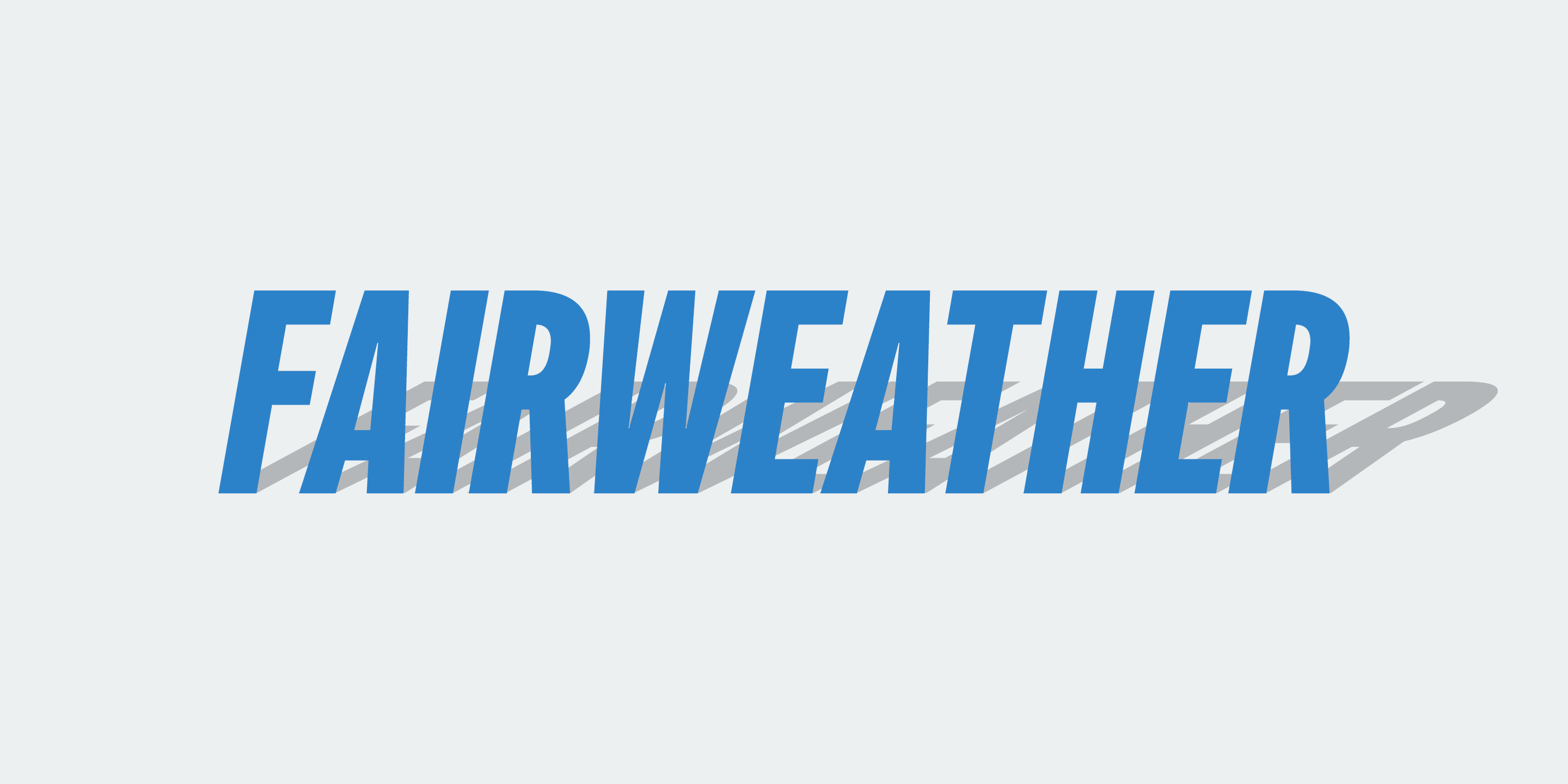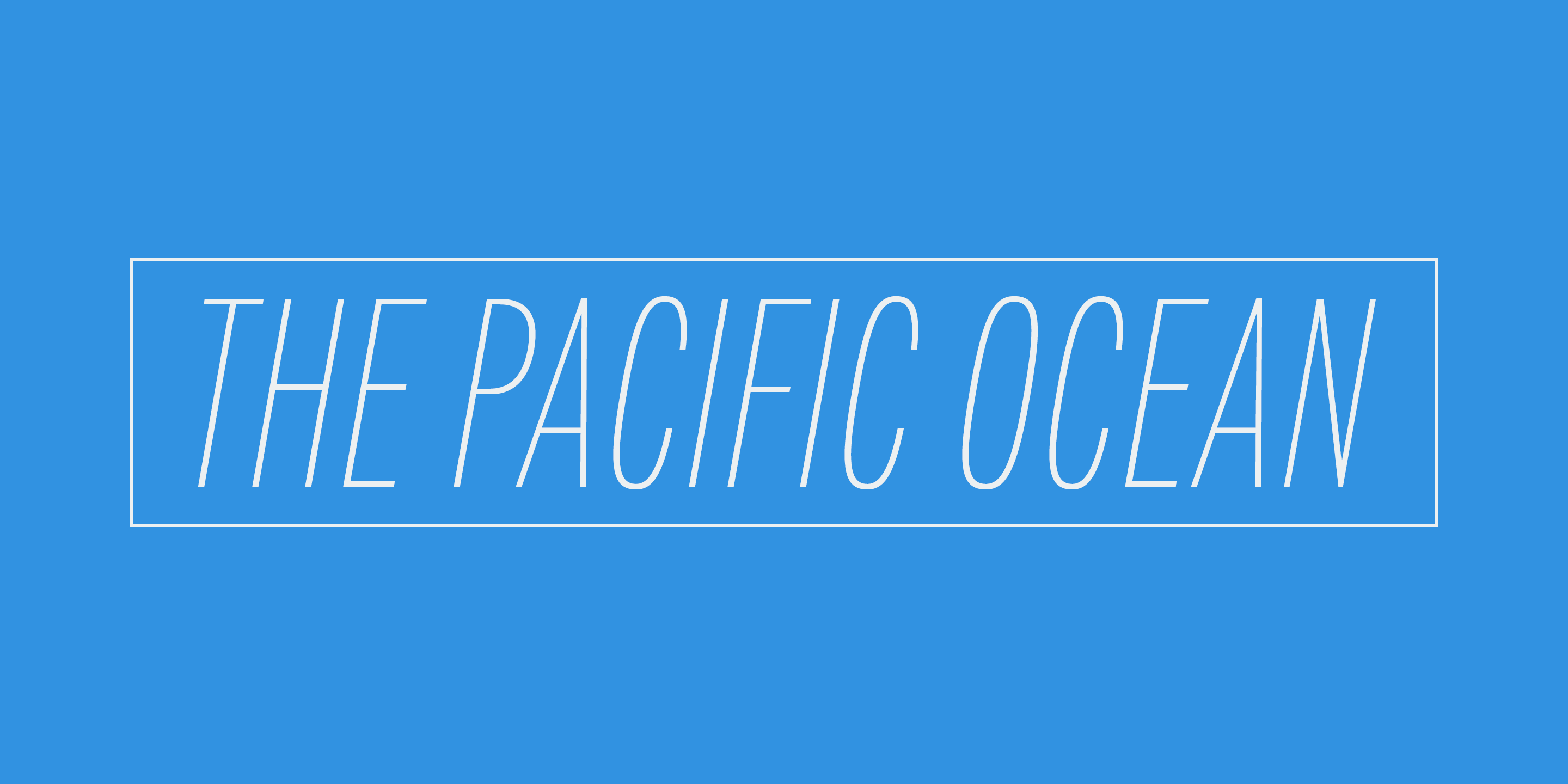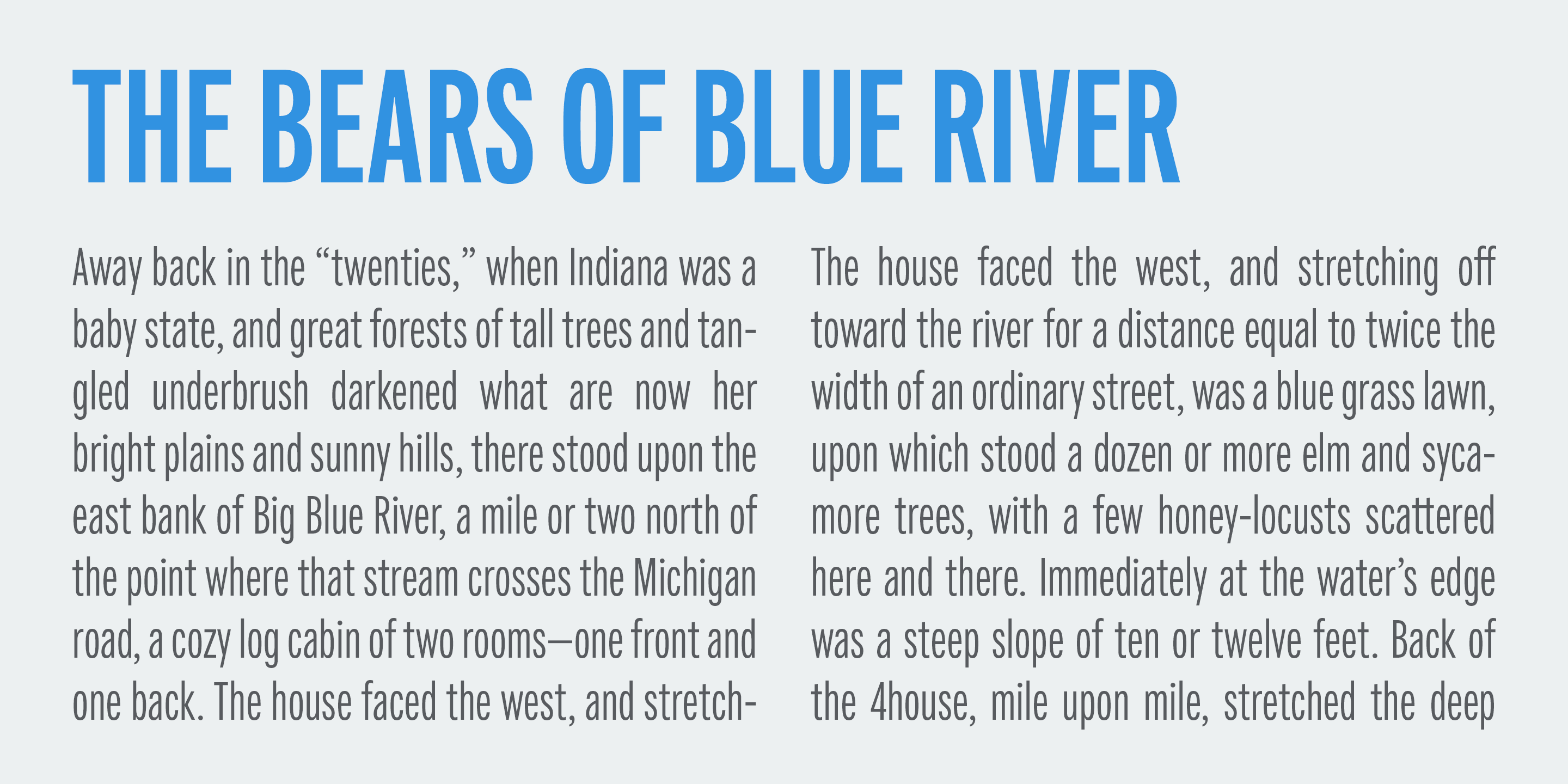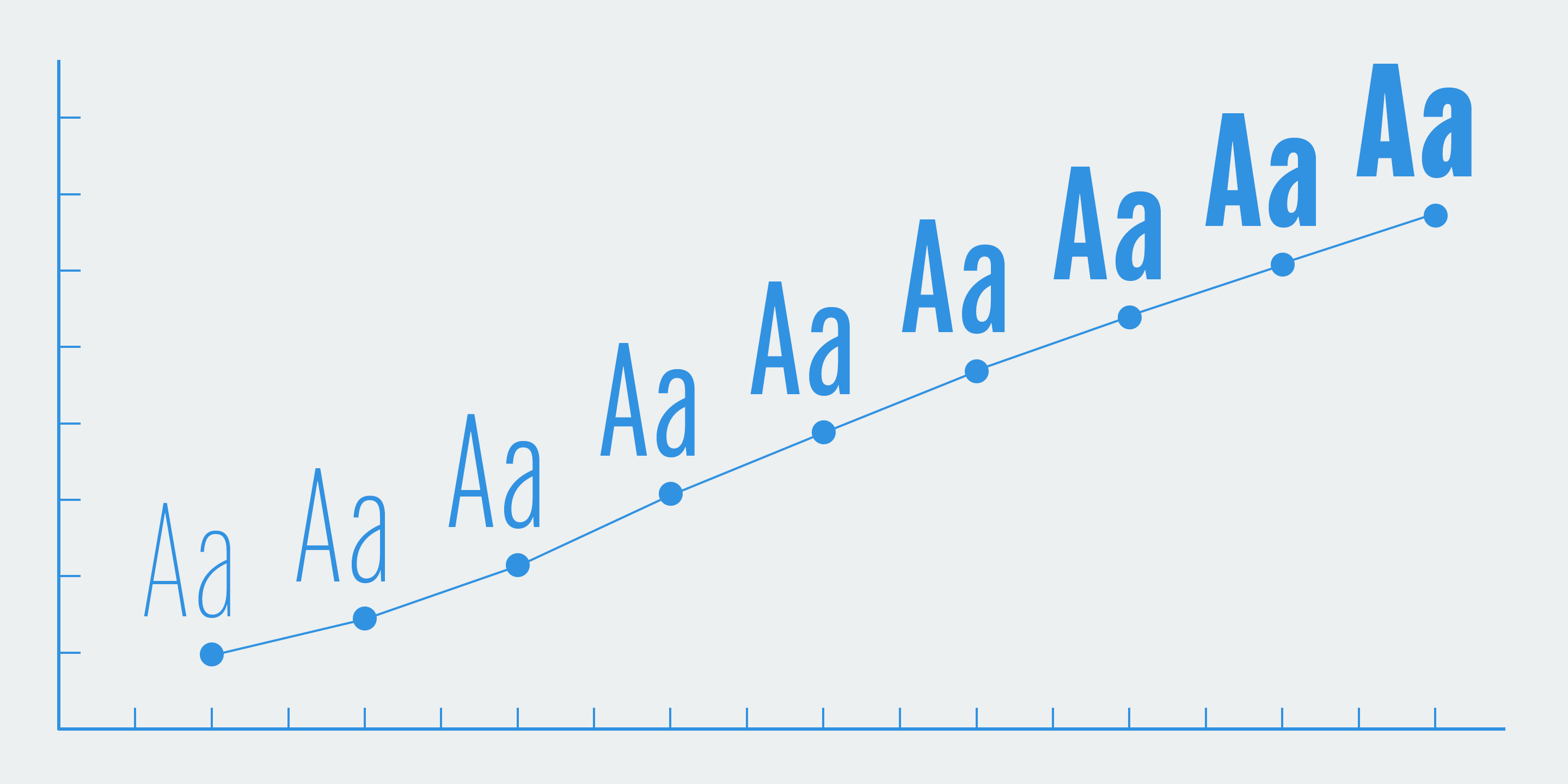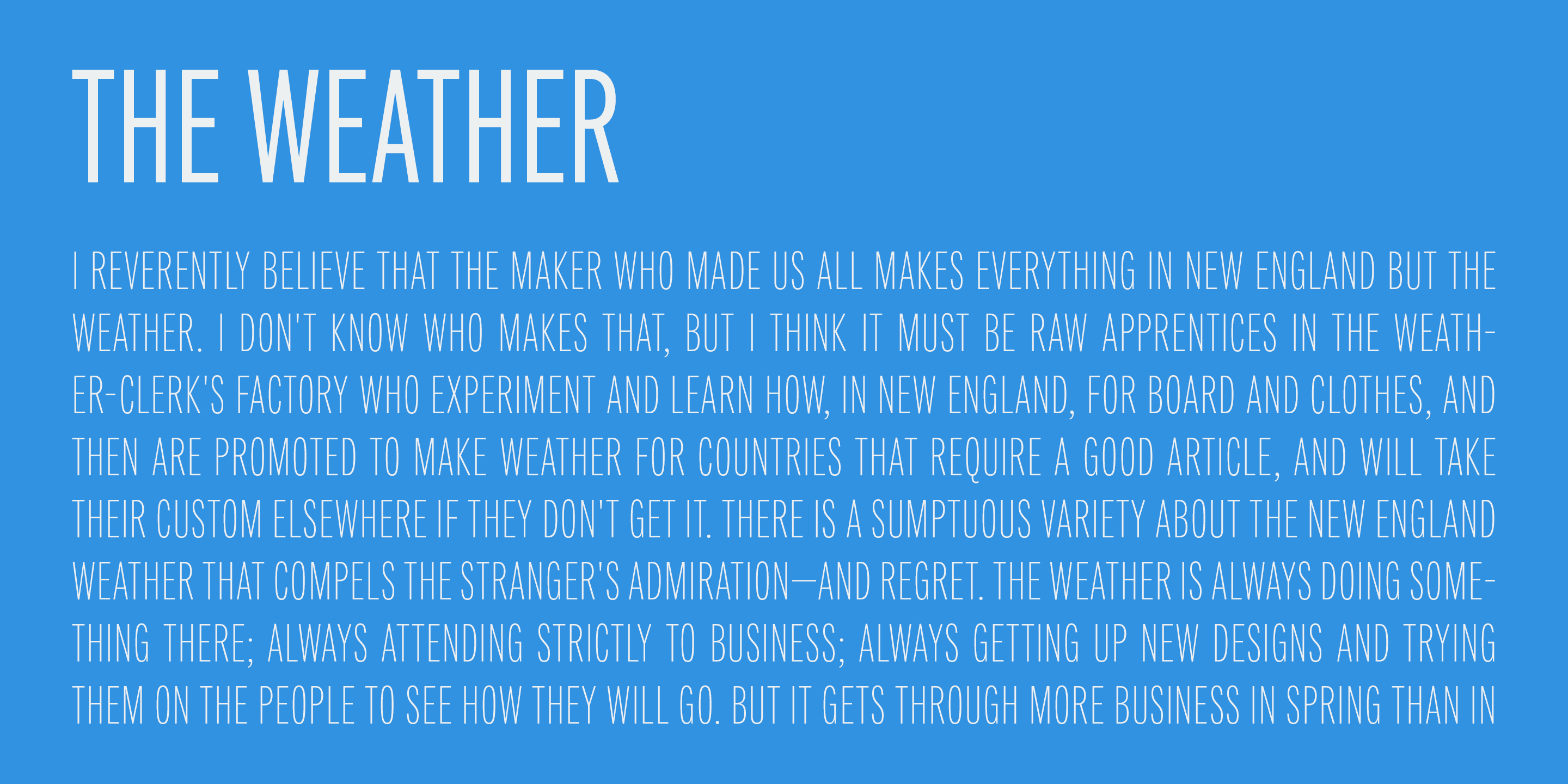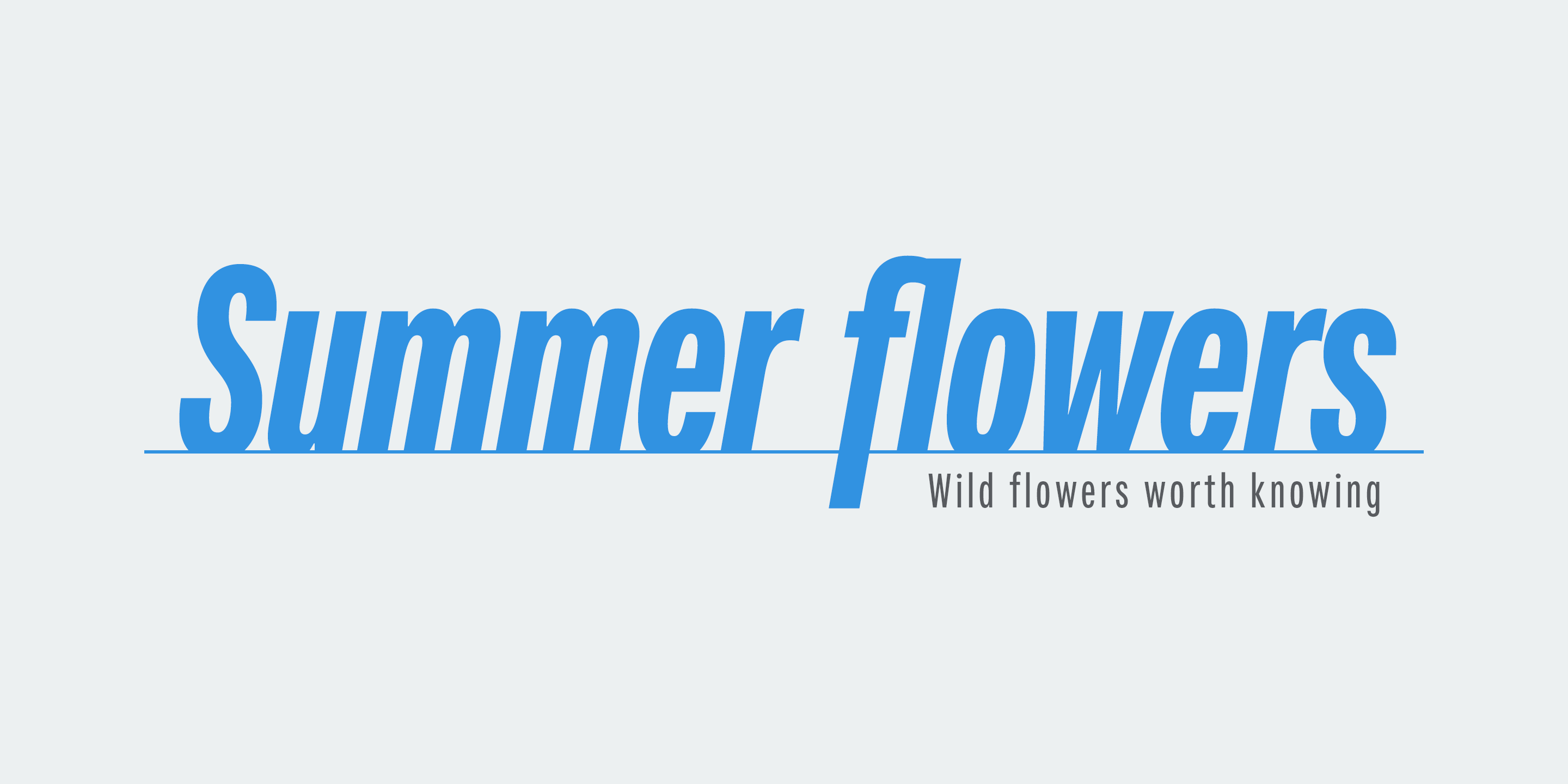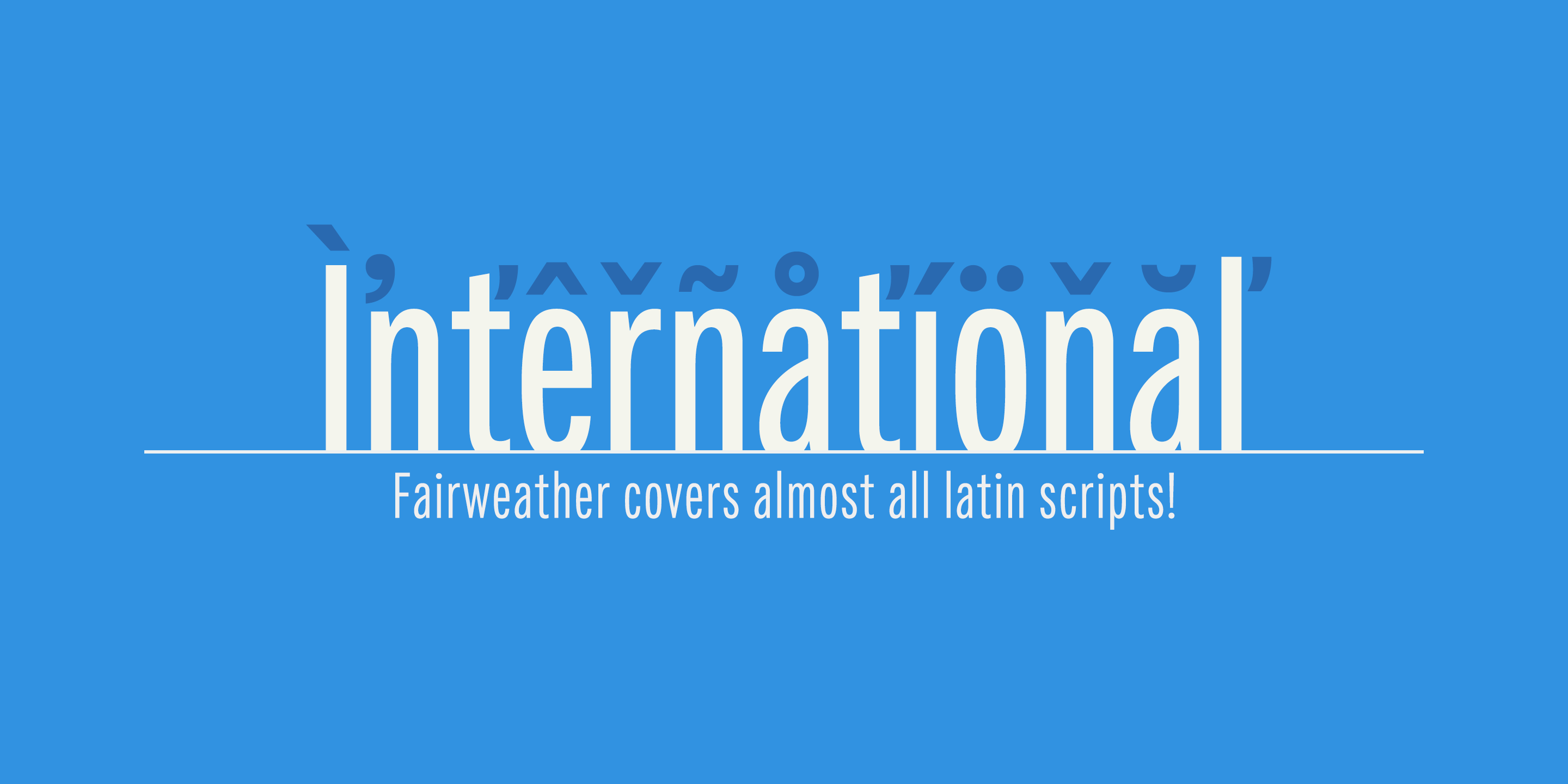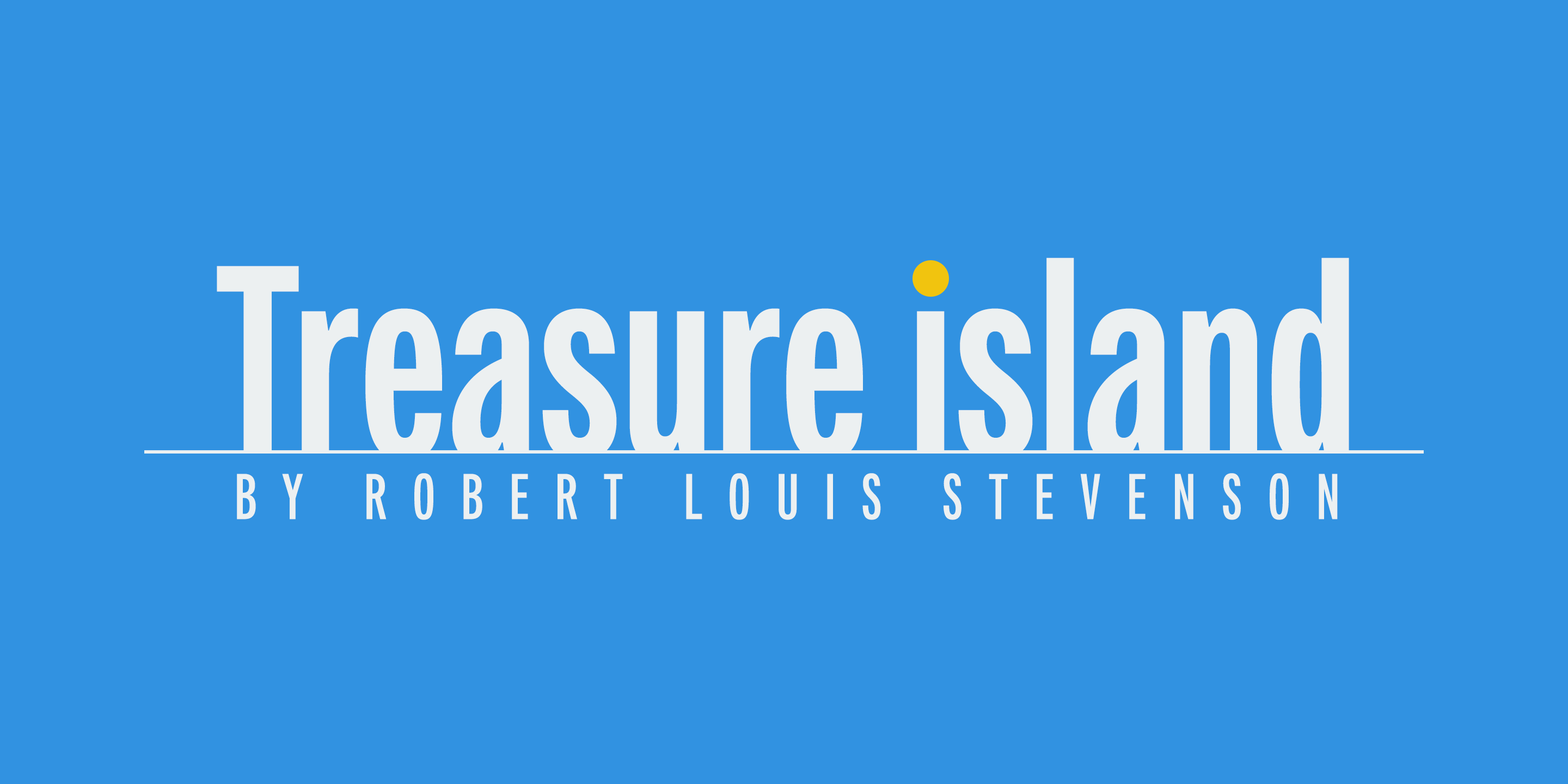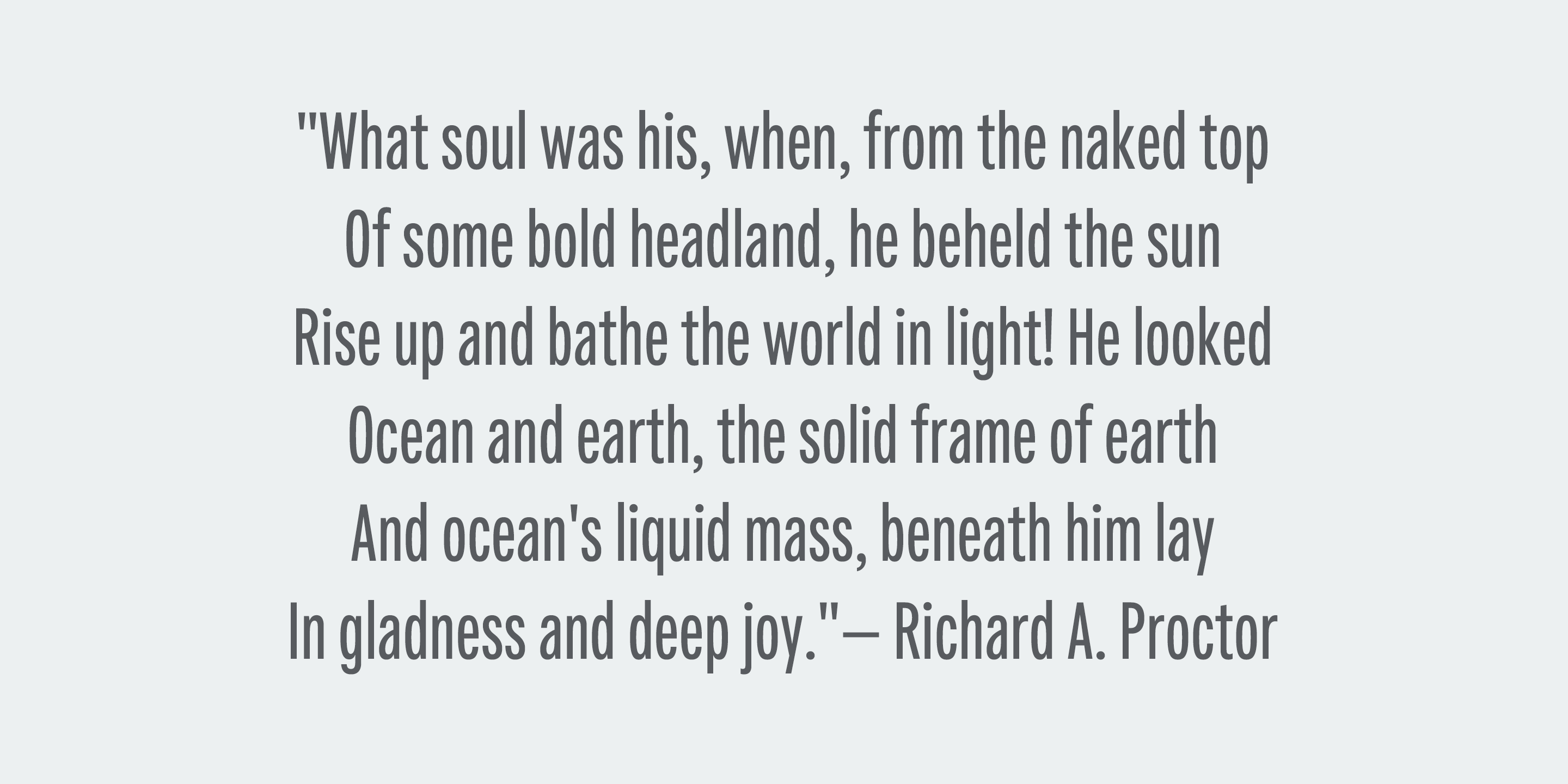
Fairweather Family (18 fonts)
The condensed forms can be very effective for body text in narrow space and the clean and clear letterform doesn't intrude your art works.
Consists of nine weights and their matching italics. Supporting almost all latin languages.